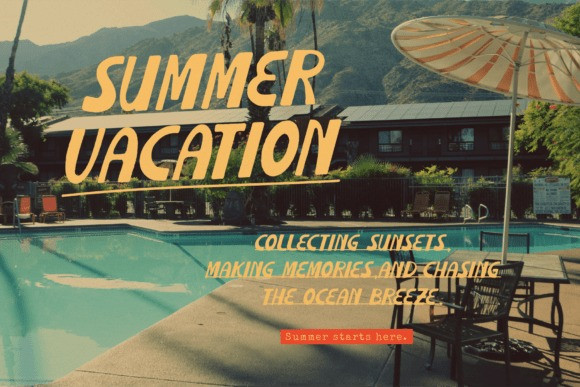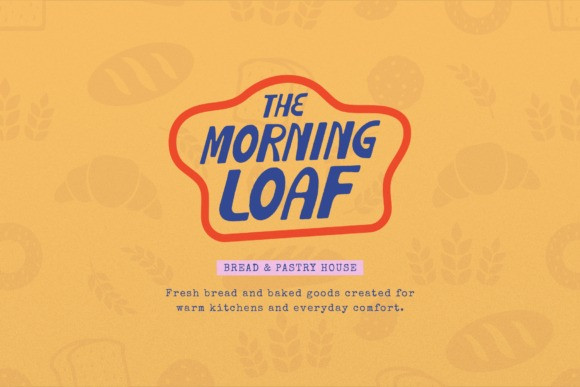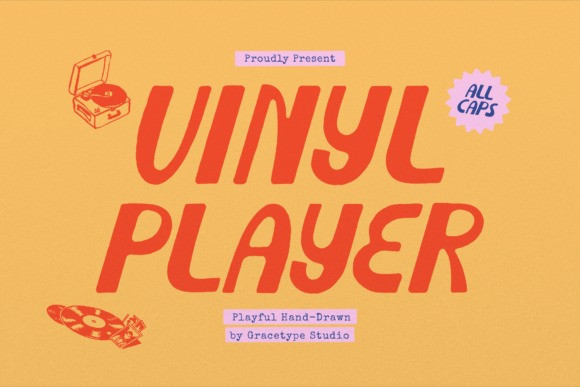
Vinyl Player Font
Vinyl Player Font a cheerful display typeface that captures a “groovy-and-nostalgic” soul. This all-caps font features heavy, casual letterforms uniquely characterized by rhythmic, hand-drawn curves and slightly off-kilter slants that bridge the gap between vintage record shop signage and modern indie branding. With its chunky structural weight and approachable, lighthearted personality, Vinyl Player is the premier choice for independent music festival identities, boutique coffee house logos, retro-themed merchandise packaging, and high-impact “funky-and-free-spirited” social media headers.